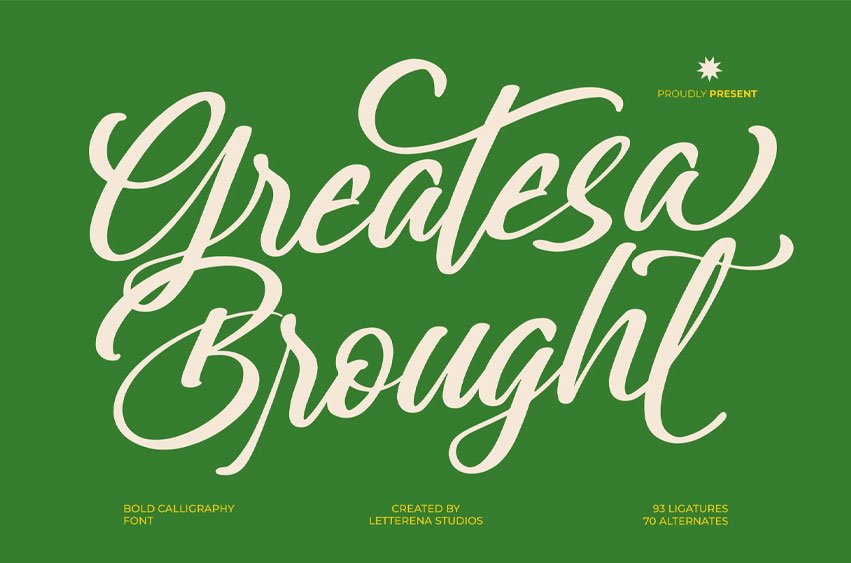
Greatesa Brought Font is suitable to complement your digital and printed creative products. This font is perfect for posters, social media posts, branding, personal projects, etc.